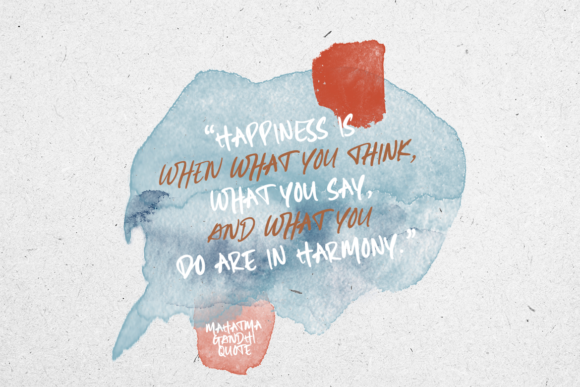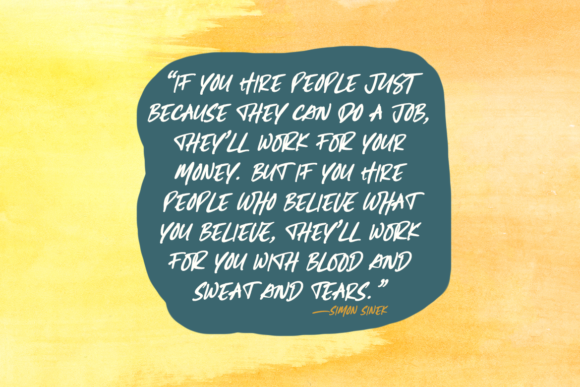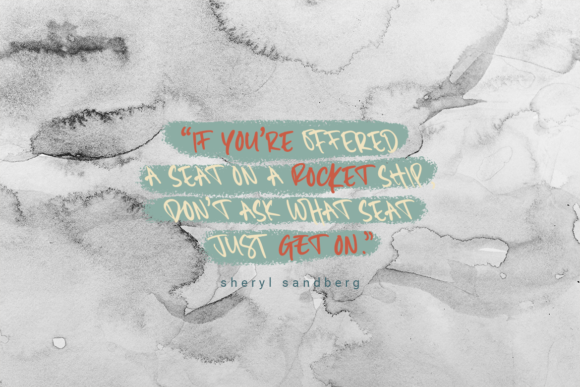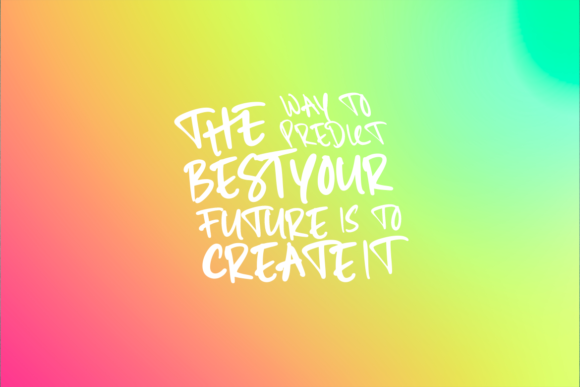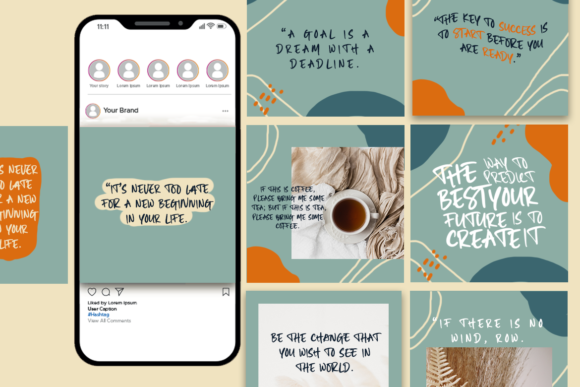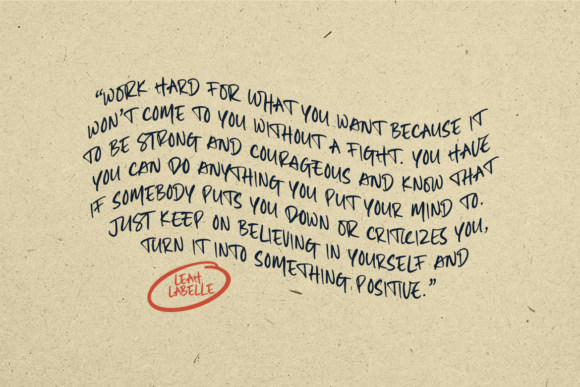
Have you ever found yourself scribbling away in a notebook, letting your pen dance across the page as you bring a character to life or brainstorm a new idea? That’s where the magic happens, and that’s exactly the feeling that the Blessing and Struggle Font aims to capture.
This spontaneous and relaxed handwritten font is all about embracing the beauty of imperfection and bringing a touch of warmth to your designs. Whether you’re working on a children’s book, a greeting card, or a social media campaign, the Blessing and Struggle Font is the perfect choice for adding a personal and whimsical touch.
As a designer, you know that the right font can make all the difference in setting the tone and atmosphere of a project. The Blessing and Struggle Font is a valuable addition to any designer’s toolkit, offering a unique and versatile style that’s sure to brighten up even the most mundane designs.
Blessing and Struggle Font Key Features
- Font Family: Blessing and Struggle Font is a custom-designed typeface.
- Character Set: Includes a wide range of characters, including Latin, Cyrillic, and Greek alphabets.
- Font Size: Available in various sizes, including 12pt, 14pt, 18pt, and 24pt.
- Resolution: Optimized for high-resolution displays (Retina-ready) at 300 DPI.
- Unique Characteristics: The font features a unique blend of traditional and modern elements, with intricate details and flourishes.
Blessing and Struggle Font Review
I recently had the chance to work with the Blessing and Struggle font, and I must say it’s a unique and interesting choice. ✨ The font’s bold and distressed texture immediately grabs attention and adds a sense of character to any design project. ✨ The varying weights and styles allow for flexibility in usage, making it suitable for a wide range of applications.
One of the standout features of Blessing and Struggle is its ability to evoke emotions. The distressed texture gives it a raw, hand-crafted feel that can be very effective in conveying a sense of authenticity. ✨ The font also has a strong sense of nostalgia, which can be appealing for projects that require a vintage or retro vibe.
While Blessing and Struggle has its strengths, there are some limitations to consider:
- ⚠️ Readability can be a concern, especially at smaller font sizes. The distressed texture can make the text difficult to read for some users.
- ⚠️ The font may not be suitable for projects that require a high level of professionalism or formality. Its distressed texture and vintage vibe may come across as too casual or unconventional.
- ⚠️ The font’s character set may be limited, which can make it difficult to use in certain languages or for specific typography needs.
Overall, I think Blessing and Struggle is a great choice for projects that require a unique and emotive font. While it may have some limitations, its strengths make it a valuable addition to any designer’s toolkit. With careful consideration and usage, Blessing and Struggle can add a touch of personality and character to any design project.
Tips for Getting the Most Out of Blessing and Struggle Font
To get the most out of the Blessing and Struggle Font, experiment with different font sizes, colors, and styles to achieve a unique and eye-catching design. You can also pair the font with other fonts to create a visually appealing combination.
Common Use Cases for Blessing and Struggle Font
The Blessing and Struggle Font is commonly used in various design projects, including:
- Invitations and event designs
- Business cards and branding materials
- Posters and flyers
- Book covers and magazine designs